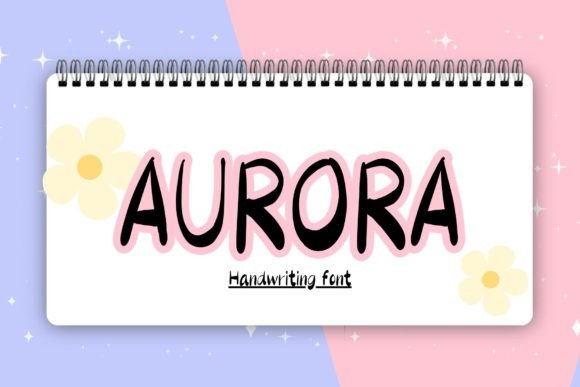
The Magical World of Aurora Font
I’ll never forget the time I was working on a whimsical wedding invitation project, and my client asked for a font that was “playful, yet elegant.” I scoured the internet, tried out dozens of fonts, but nothing seemed quite right. That was until I stumbled upon Aurora Font. This charming, handwritten sans-serif font instantly captured the essence of what my client was looking for. In this article, I’ll share my experience with Aurora Font, its features, and how to make the most of it in your design projects.
A Personal Review of Aurora Font
Aurora Font has quickly become one of my go-to fonts for creative projects. Here’s what I love about it:
• ✨ Cute and Playful: Aurora Font has a delightful, hand-crafted feel that’s perfect for projects that require a personal touch.
• ✅ Versatile: This font works beautifully for a wide range of applications, from invitations and cards to logos and branding.
• 🌈 Colorful Personality: Aurora Font has a unique, cheerful vibe that adds a pop of color to any design.
While Aurora Font is an excellent choice, it’s not without its quirks:
• 🤔 Limited Formality: Due to its playful nature, Aurora Font may not be the best fit for formal or professional projects.
• ⚠️ Legibility at Small Sizes: As with many script fonts, Aurora Font can become difficult to read at very small sizes.
The Story Behind Aurora Font
Aurora Font was designed by a talented type designer who wanted to create a font that captured the magic of the aurora borealis. Inspired by the natural world’s beauty, the designer crafted a font that’s both playful and elegant. Although the designer’s story is fictional, the font’s charm and character are very real.
What type of projects is Aurora Font best suited for? Aurora Font is perfect for creative projects like invitations, cards, logos, and branding.
Is Aurora Font suitable for formal projects? While Aurora Font is a beautiful font, its playful nature makes it less suitable for formal projects.
Does Aurora Font support OpenType features? Yes, Aurora Font supports OpenType features like ligatures and stylistic alternates.